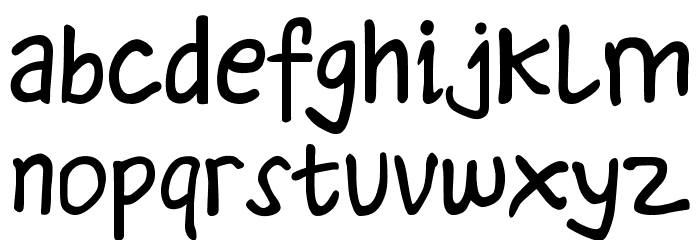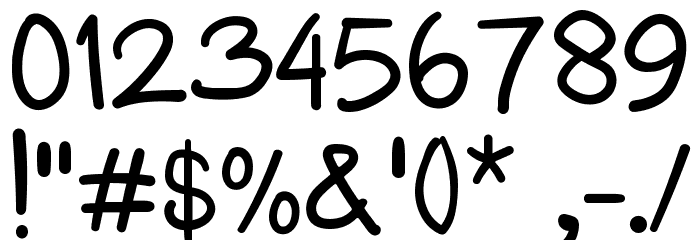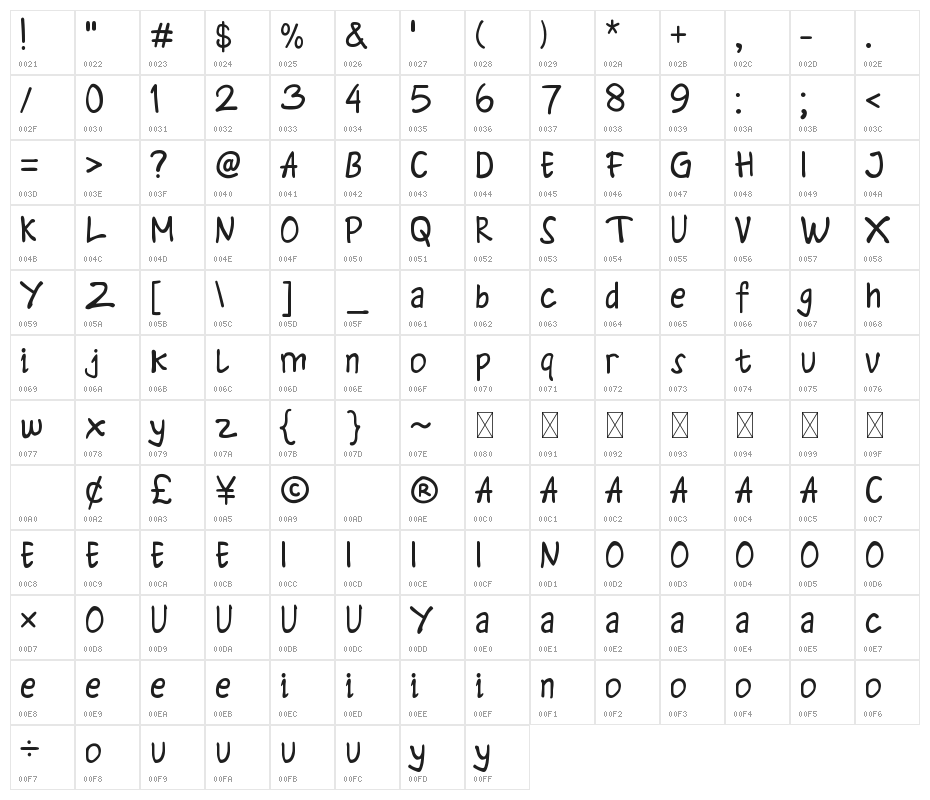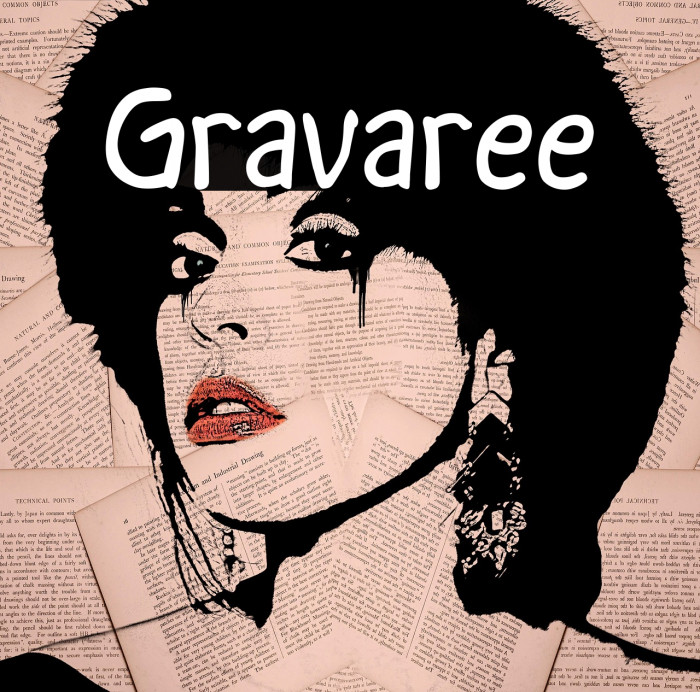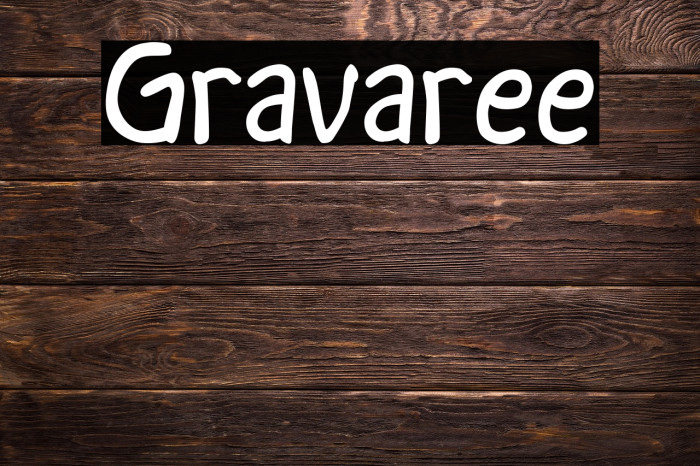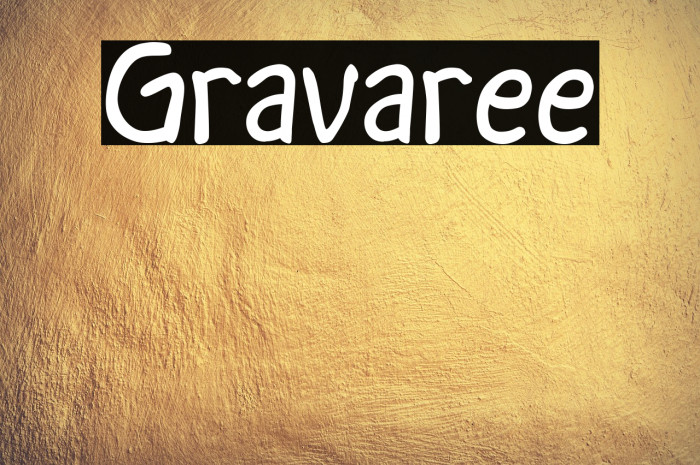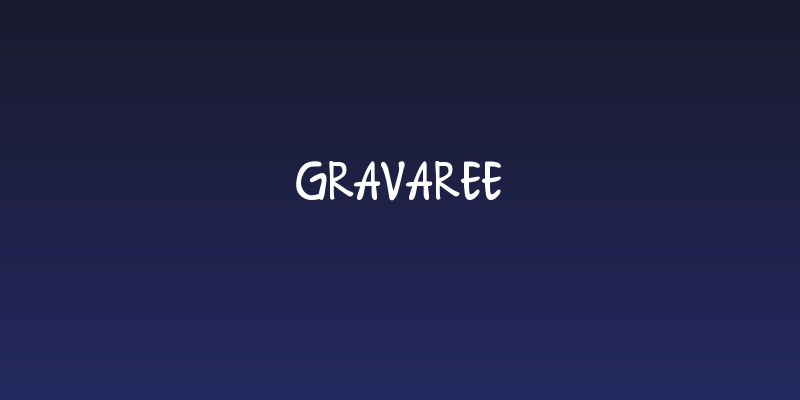
Gravaree Font
This playful and casual font features a handwritten style with rounded edges and a friendly appearance. The characters are slightly irregular, giving it a personal and approachable feel. The uppercase and lowercase letters maintain a consistent flow, while the numerals and special characters complement the overall design. Its informal nature makes it suitable for projects that aim to convey warmth and creativity.
A playful handwritten font with rounded edges and a friendly style.
- Proposed Projects: Ideal for children's books, greeting cards, casual branding, and social media graphics.
- Overall Style: Casual
- Use Case: Headlines, Informal text, Creative projects